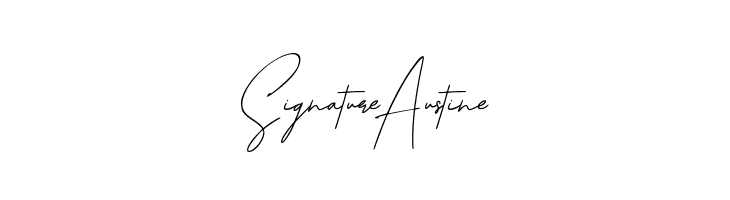
A flowing, elegant cursive font with interconnected characters.
A sophisticated cursive script font with elegant, flowing strokes.
A sophisticated handwritten font with fluid, continuous strokes and a modern elegance.
A sophisticated handwritten font with fluid, continuous strokes and elegant curves.
A playful, handwritten cursive font with smooth, flowing strokes.
Elegant monoline script font with a handwritten style.
A modern, handwritten font with fluid, connected strokes and a signature-like style.
A playful, handwritten cursive font with a fluid and organic style.
Elegant cursive script with a handwritten feel.
A cursive, handwritten-style font with elegant, flowing characters.